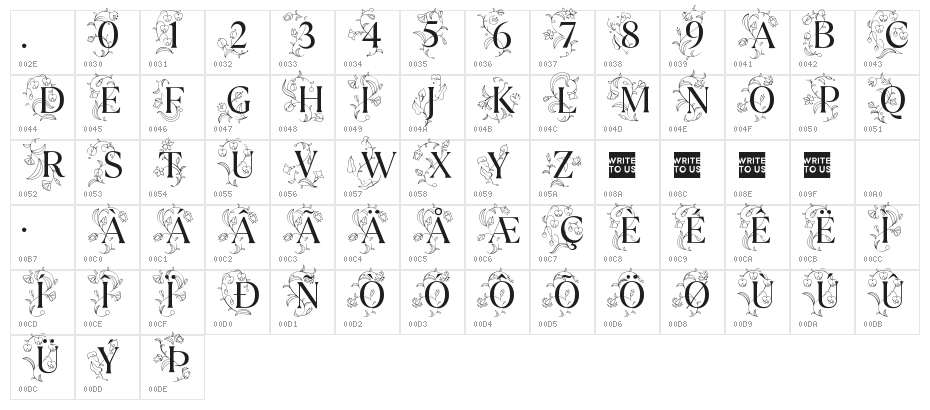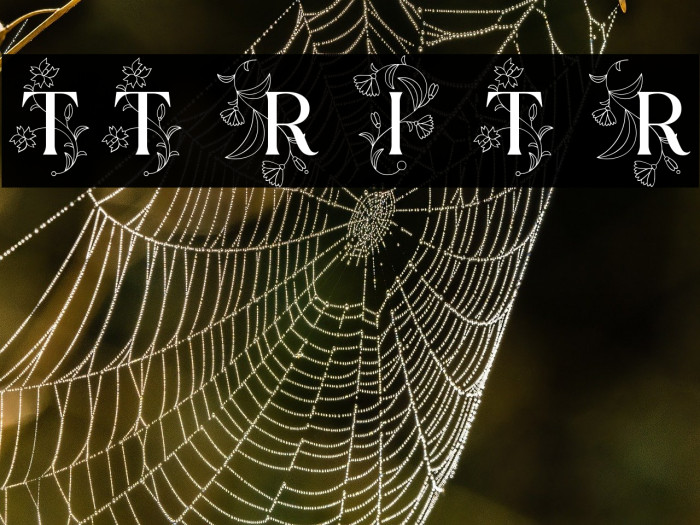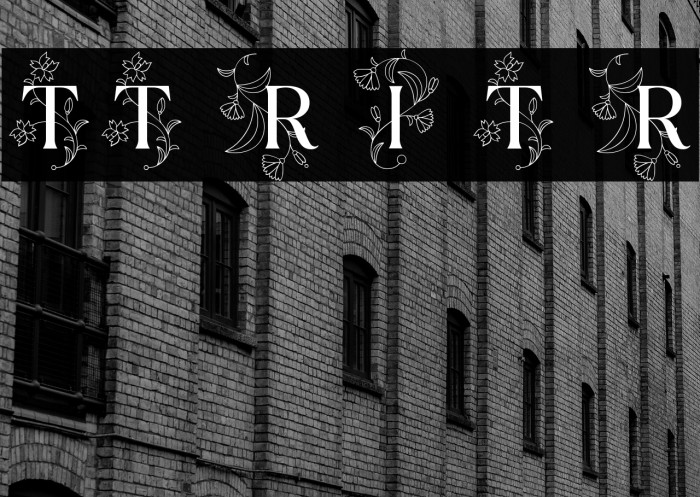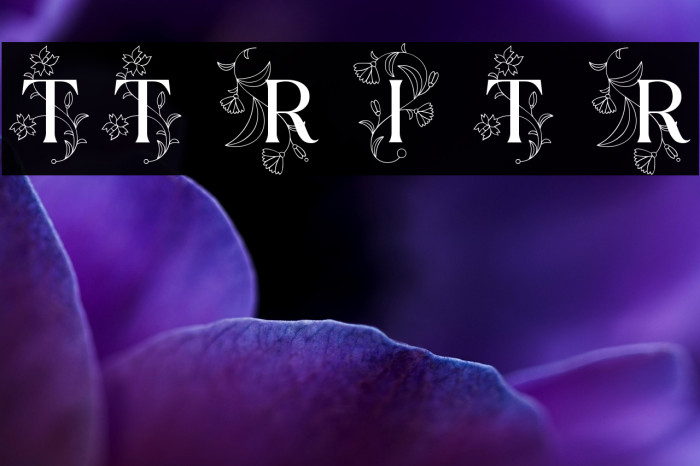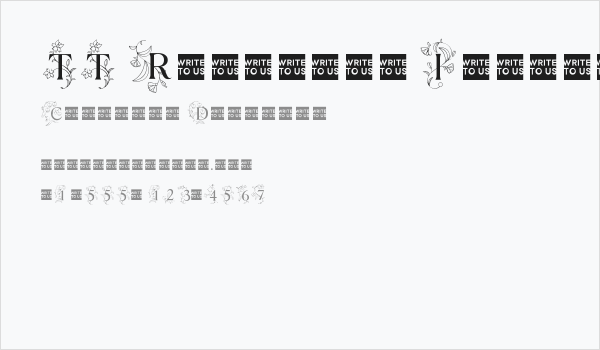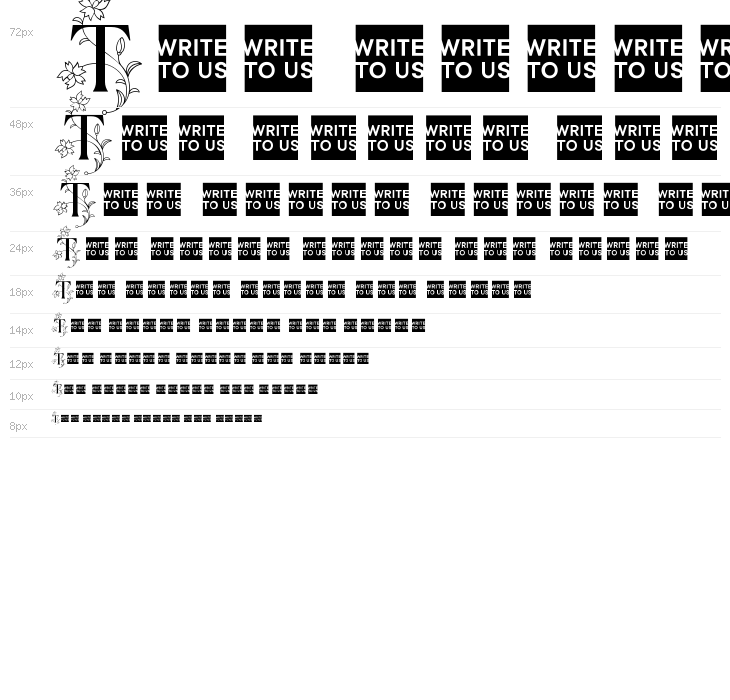
TT Ramillas Initials Trl Rg Font
TT Ramillas Initials Trl Rg Description
This font features an elegant and decorative style, with each character adorned by intricate floral designs. The uppercase and lowercase letters, as well as the numbers, are enveloped by delicate vines and leaves, creating a sophisticated and ornamental appearance. The characters themselves are bold and serifed, providing a strong contrast to the light and airy embellishments. This combination of bold letterforms and intricate detailing gives the font a unique and artistic flair, making it ideal for projects that require a touch of elegance and creativity.
| Proposed Projects | Ideal for wedding invitations, luxury branding, decorative headings, and artistic projects that require a touch of sophistication. |